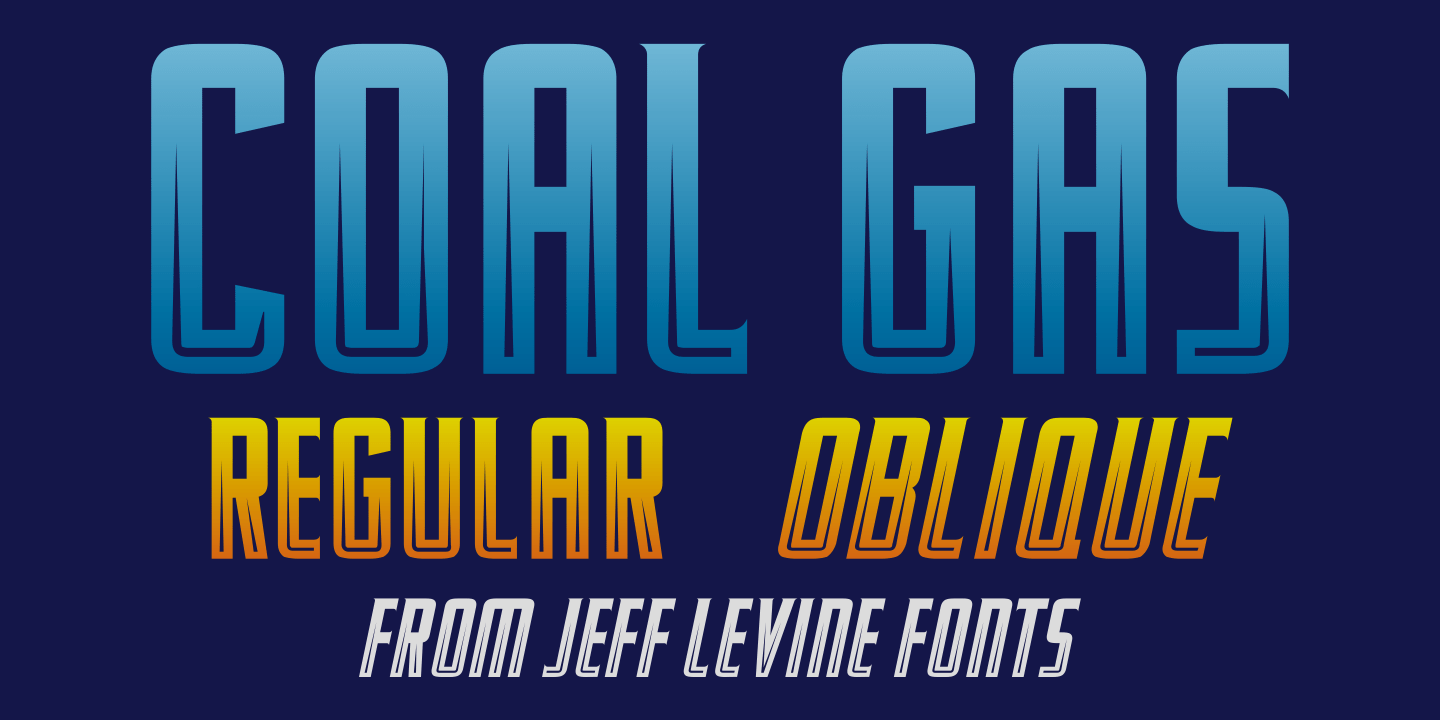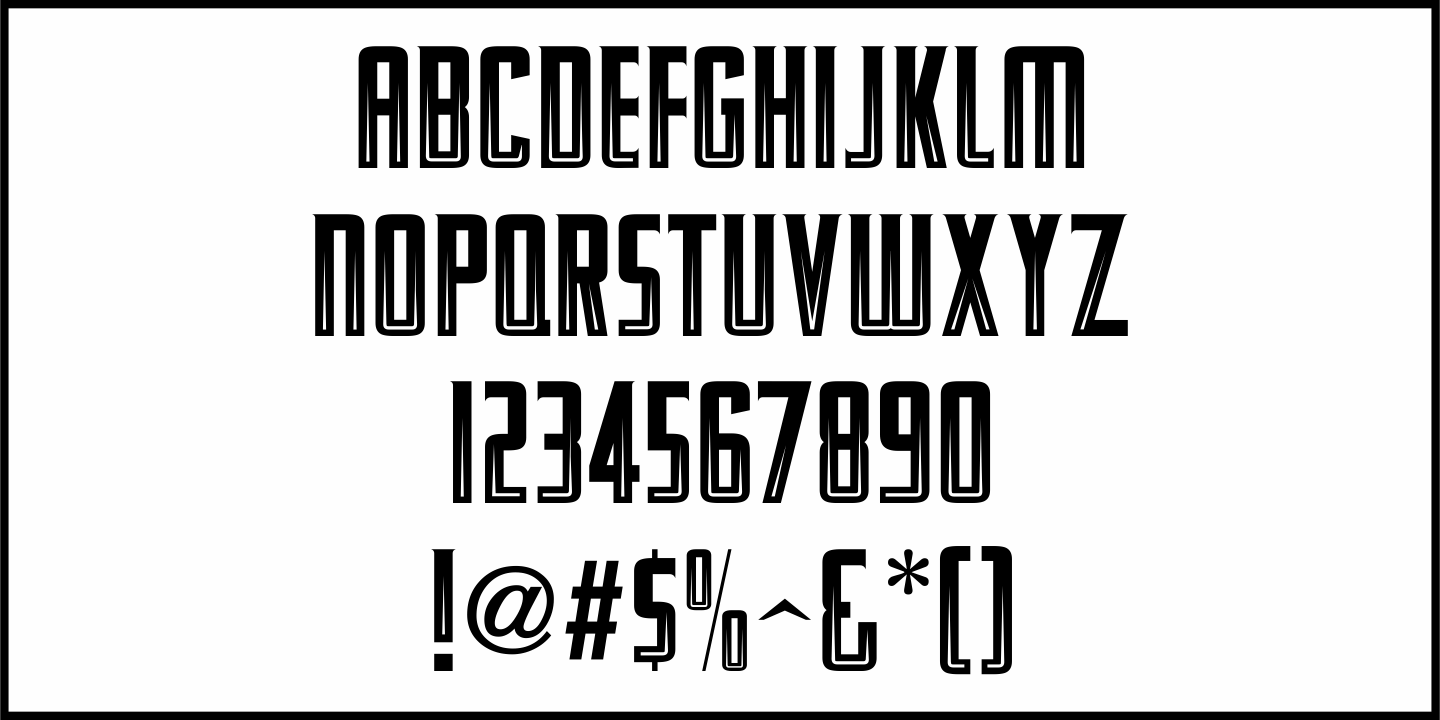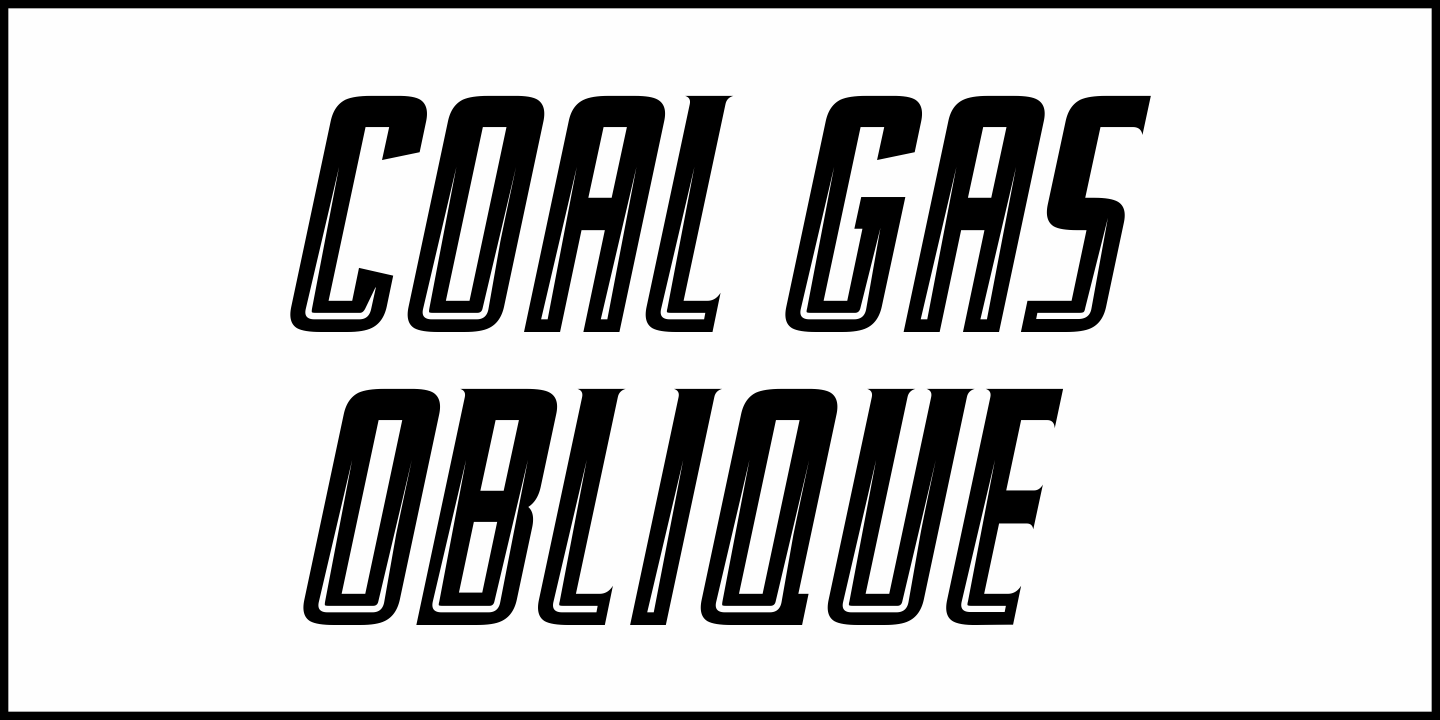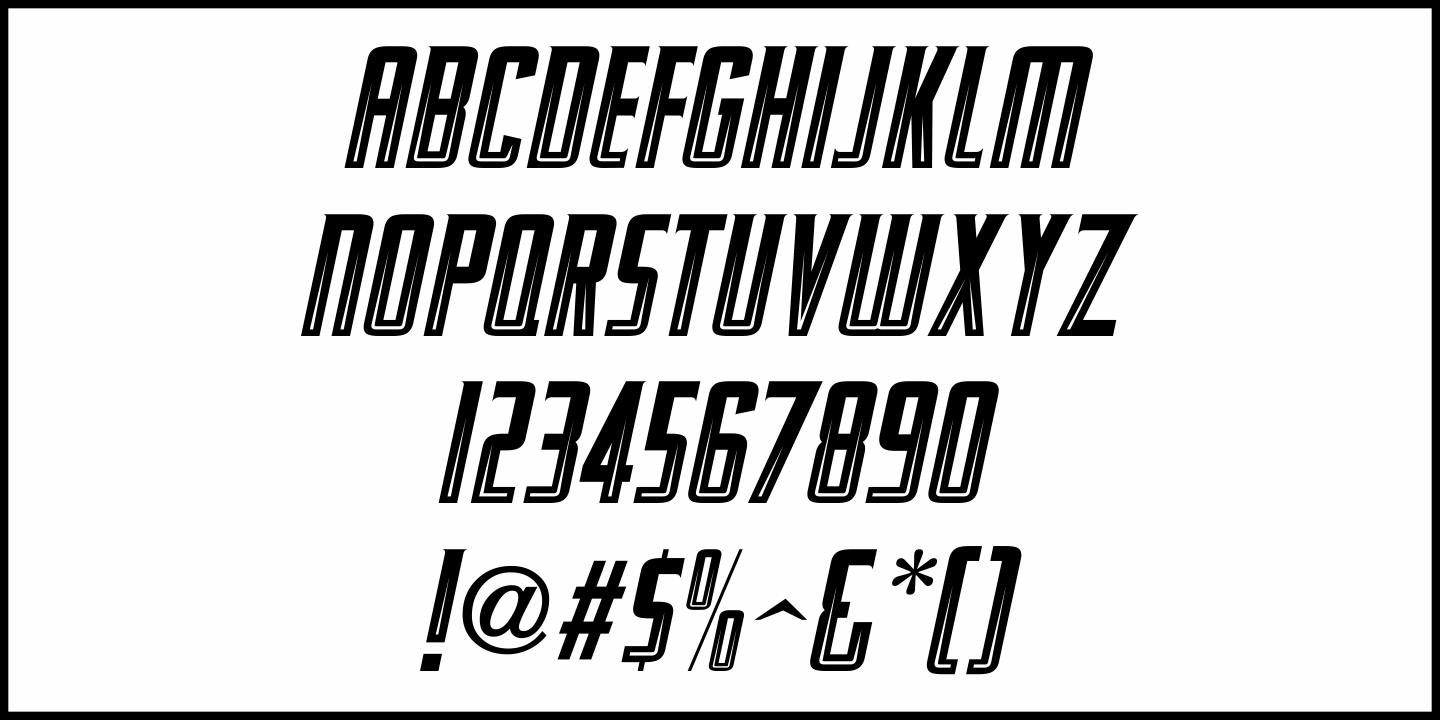
Coal Gas
The unique hand lettering simulating a gas flame inside each character of the film's title was used in the movie trailer for 1944's "Gaslight" starring Charles Boyer, Ingrid Bergman, Joseph Cotten and Angela Lansbury.
In fact, based on the plot's premise, the modern term "gaslighting" is used to describe emotional abuse which can affect a person's perception of reality. The term gained popularity in the 2010s.
Trivia: Old-time home lighting and street lights were lit by coal gas, hence the name of the typeface.
Coal Gas JNL is available in both regular and oblique versions.